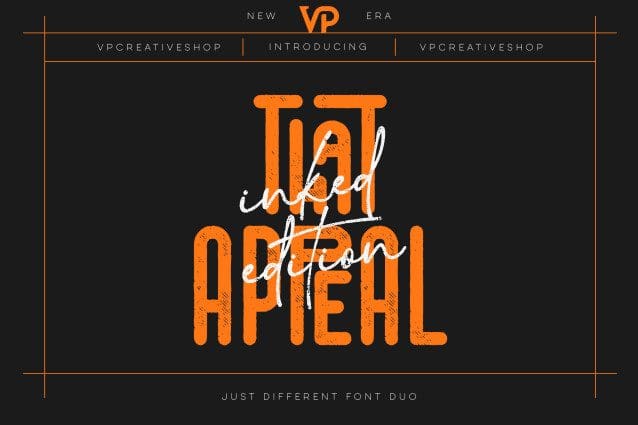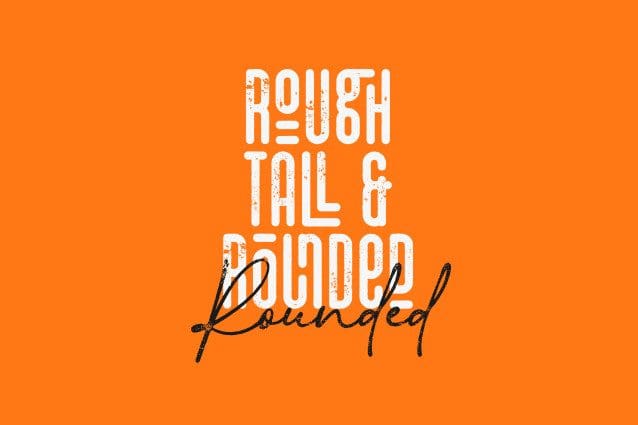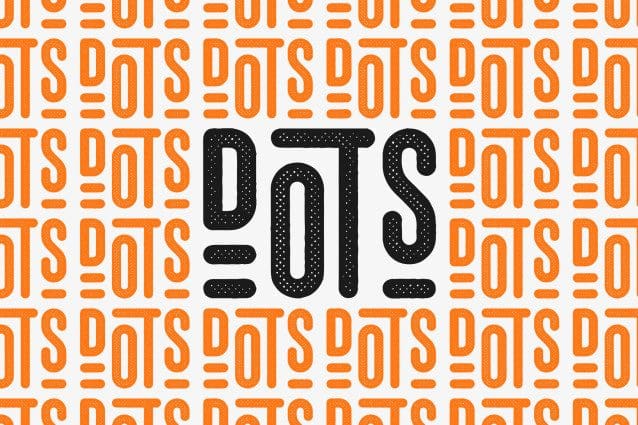
That Appeal Inked Edition Font
That Appeal Inked Edition Font a striking font duo that brilliantly combines versatility and style. This unique pairing features two complementary typefaces, each with its own charm and functionality, making it a must-have for your creative toolkit.
First up is our Display Font. This gem is not just a font, it’s a statement! With over 200 ligature glyphs and a whopping 70+ alternate glyphs, it’s your go-to choice for crafting eye-catching headlines and unforgettable logos. Its long, elegant strokes and diverse range of glyphs ensure that your designs will stand out, be it in print or digital media.
Complementing this is our Casual Modern Script. It’s like the cool, laid-back cousin in the font family! With its smooth, flowing lines, this script brings a touch of modern casual flair that feels both personal and professional. It’s perfect for everything from branding projects to personal invitations, adding a human touch to your designs.
Together, these fonts support an impressive 87 languages, making “That Appeal” not just beautiful, but incredibly versatile and inclusive. Whether you’re creating for a global audience or targeting a specific linguistic group, these fonts have got you covered.
So, whether you’re designing a bold logo, a stylish headline, or a heartfelt invitation, “That Appeal” is here to elevate your work. Get ready to make your designs not just seen, but remembered!